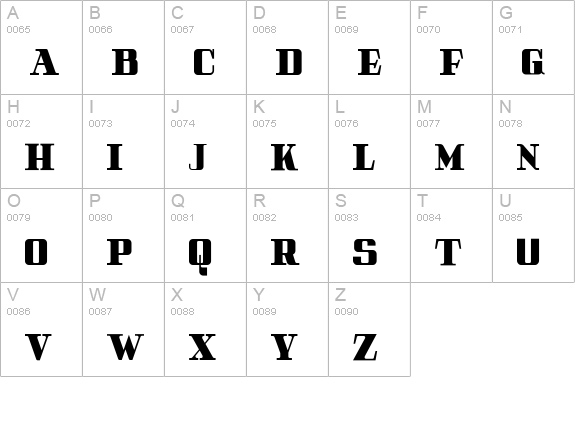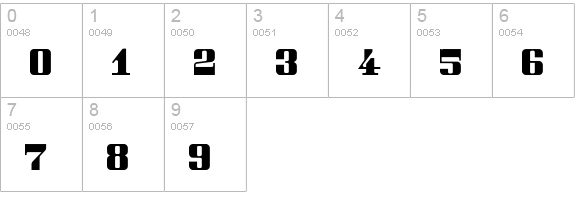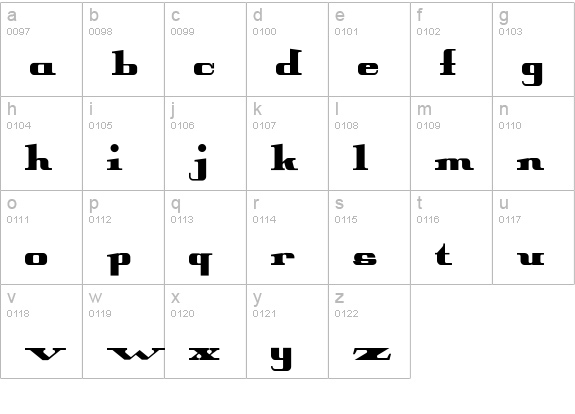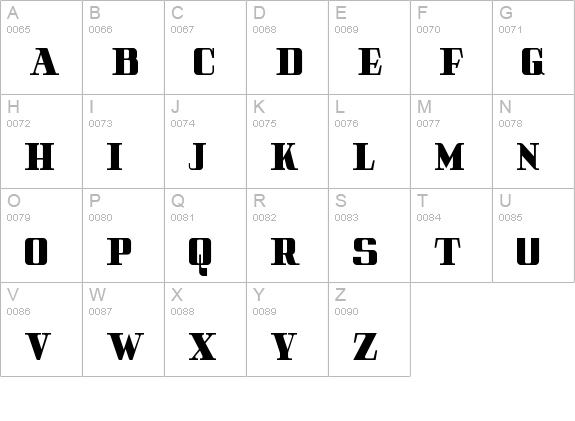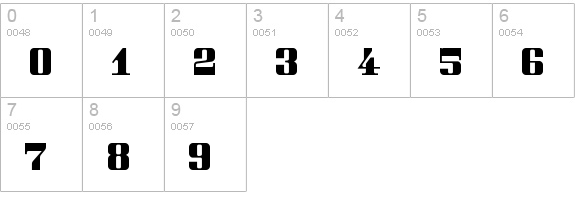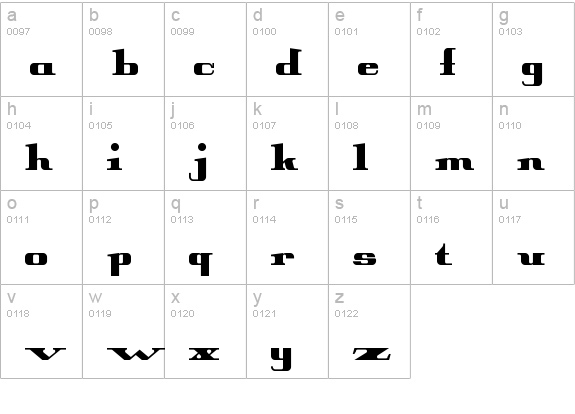
Peter Obscure Bold Font Details
Peter Obscure Bold is a strong, high-contrast variant in the Peter typeface family \xE2\x80\x94 well suited to headlines, attention-grabbing titles, and strong calls-to-action.
Introducing Peter Obscure Bold font, a stunning typeface designed to make a bold statement in your creative projects. With its strong and distinctive letterforms, this font is perfect for adding a touch of elegance and sophistication to your designs. Peter Obscure Bold is a versatile font that can be used for a wide range of purposes, from branding and logo design to headlines and advertising. Its bold and powerful presence will captivate your audience and leave a lasting impression. One of the most appealing aspects of Peter Obscure Bold font is that it is free! Yes, you read that right. This amazing font is freely available to download at FontsMarket.com. Now, you can elevate your designs without breaking the bank. Whether you are a professional designer or a hobbyist, this font is a valuable addition to your collection. Not only does Peter Obscure Bold offer a visually striking appearance, but it also possesses excellent legibility. Each letter is meticulously crafted to ensure clarity, making it easy for your audience to read your message with ease. This font's unique personality is enhanced by its subtle yet eye-catching details. From its subtle curves to its sharp edges, Peter Obscure Bold exudes confidence and sophistication. It effortlessly combines modern aesthetics with a timeless appeal, making it a perfect choice for both contemporary and classic design projects. In addition to its aesthetics, Peter Obscure Bold font also offers a wide range of language support, ensuring that you can communicate your message effectively to a global audience. Its extensive character set includes punctuation marks, numerals, and special characters, providing you with all the tools you need to bring your creative vision to life. Whether you are designing a logo, a poster, or a website, Peter Obscure Bold font will add a touch of elegance and professionalism to your work. Download this exceptional font for free at FontsMarket.com and unlock a world of design possibilities. Elevate your projects and make a lasting impression with Peter Obscure Bold font.